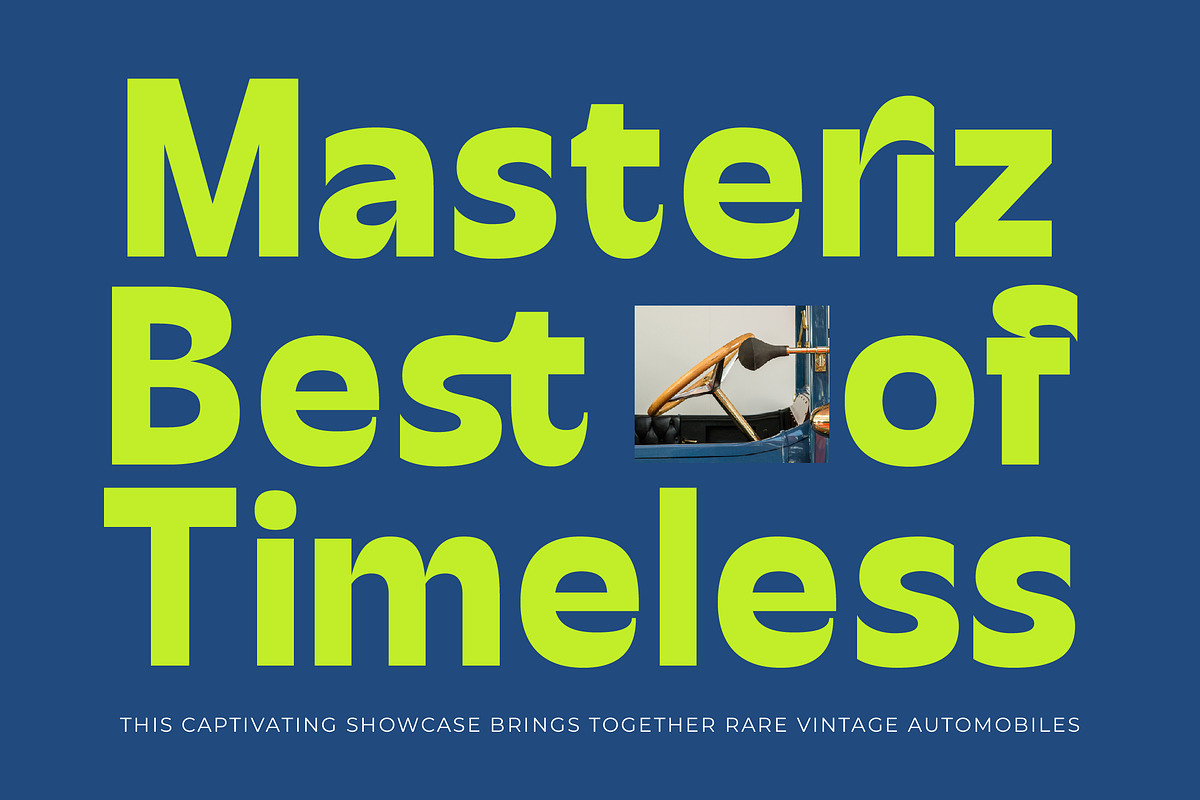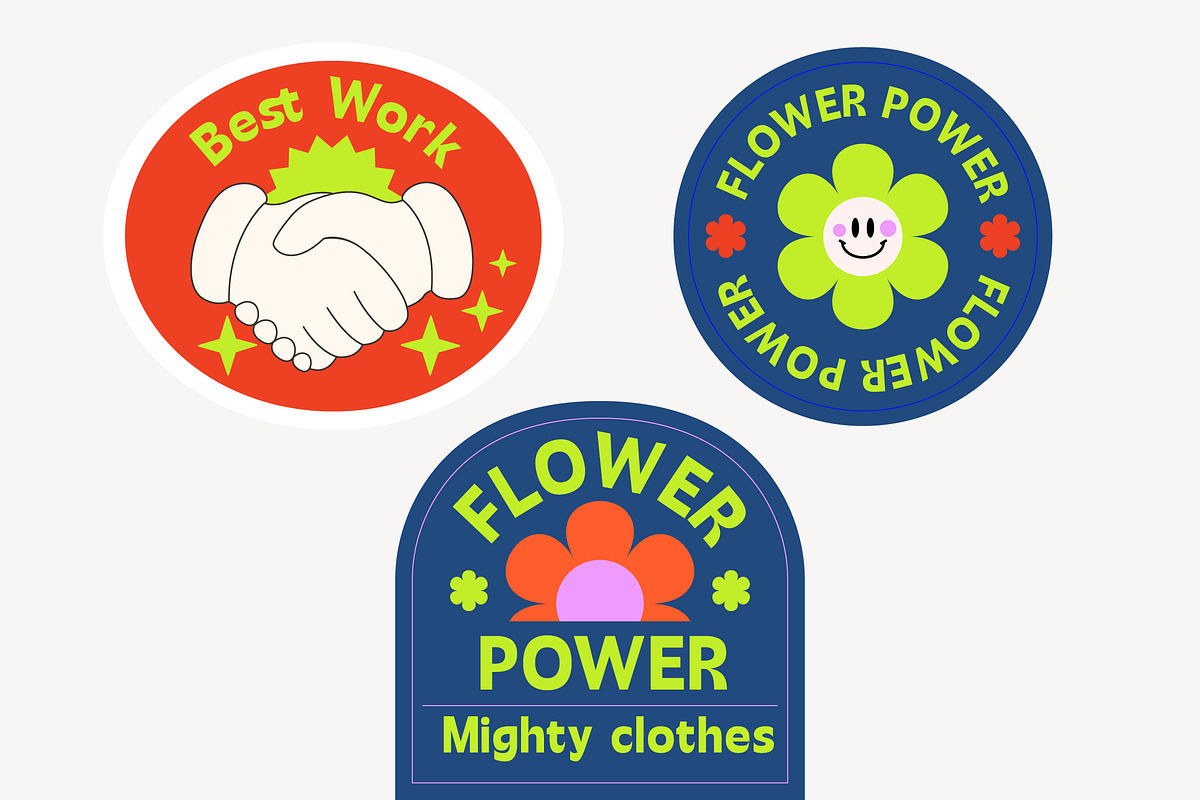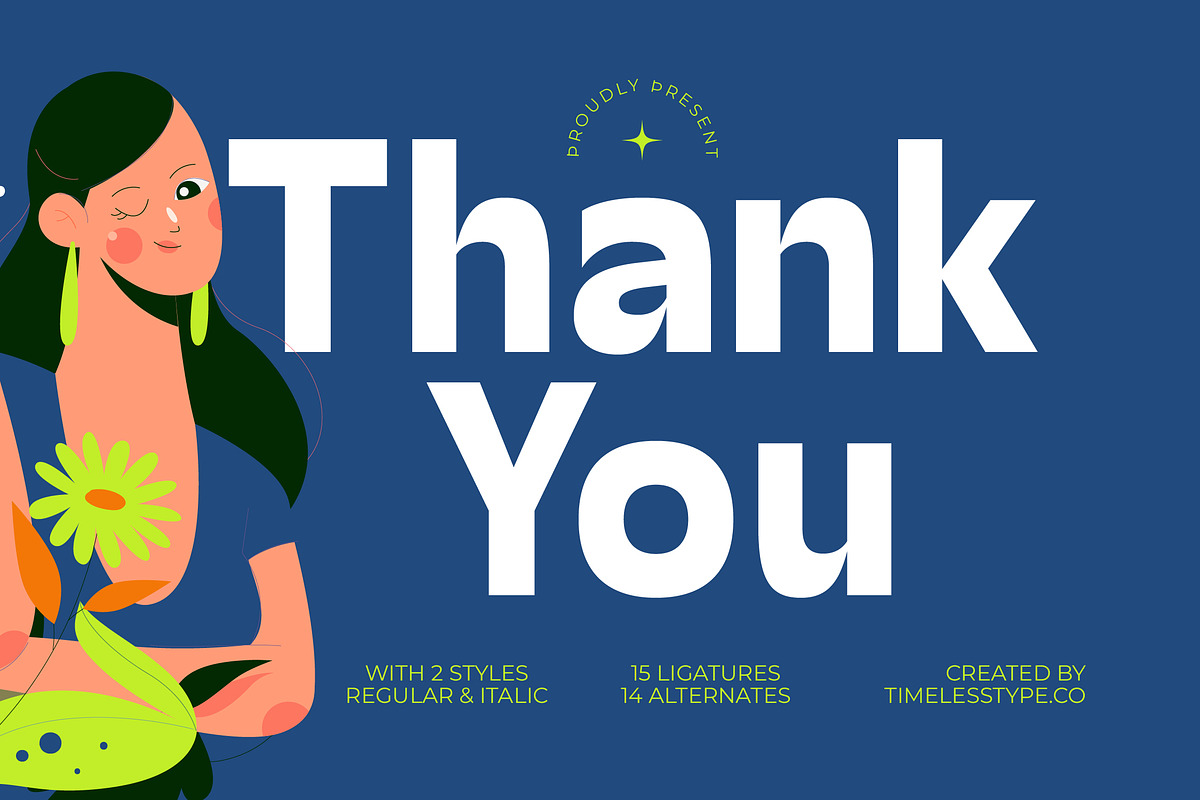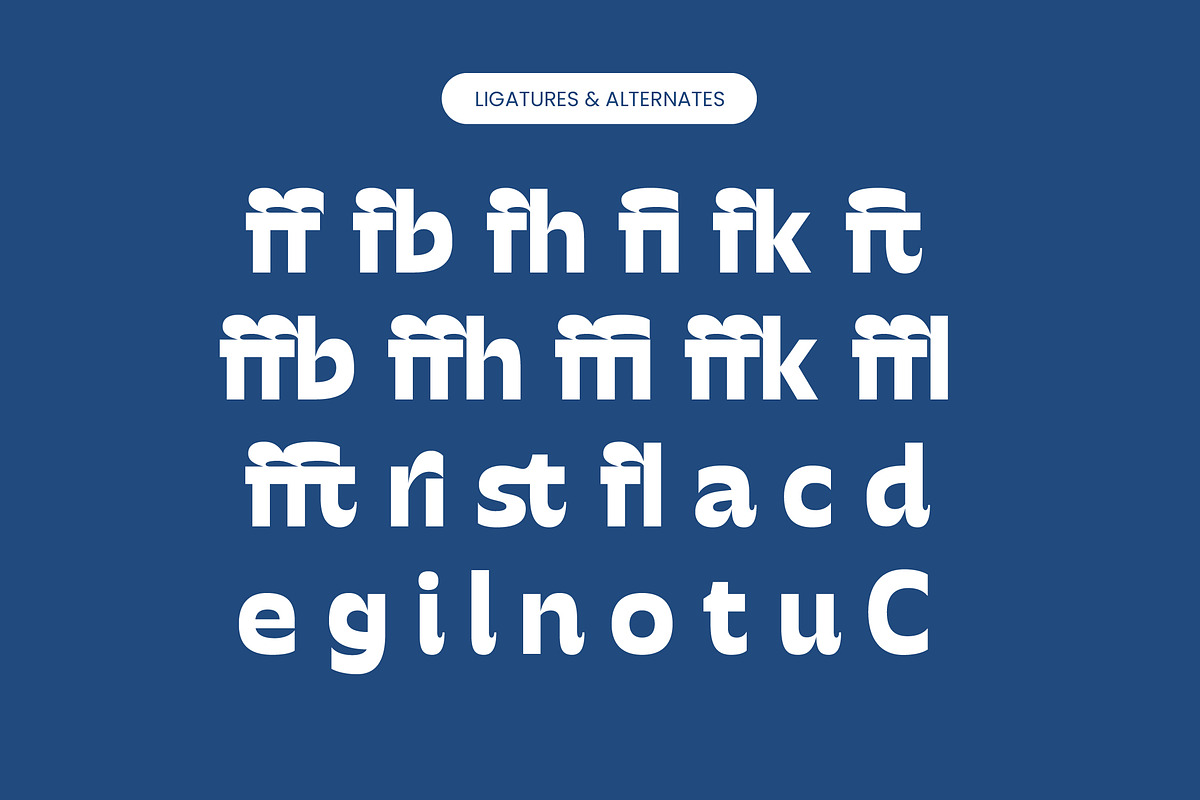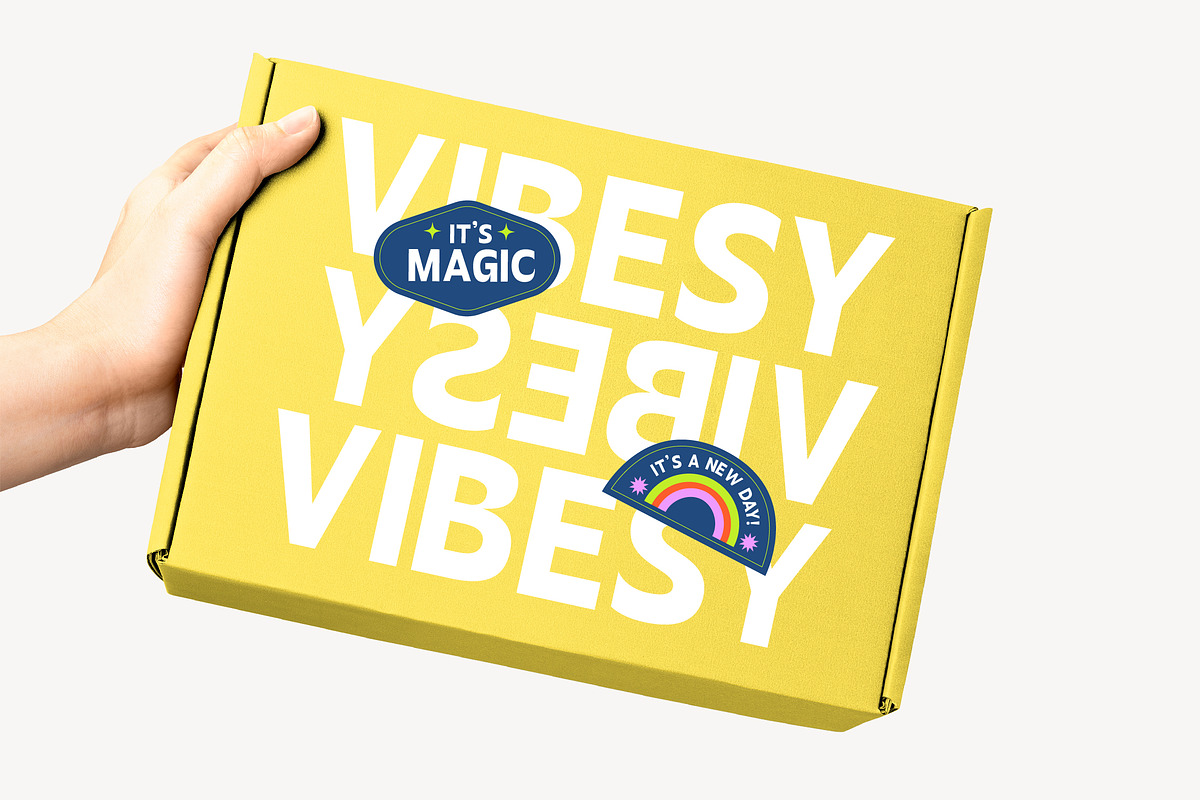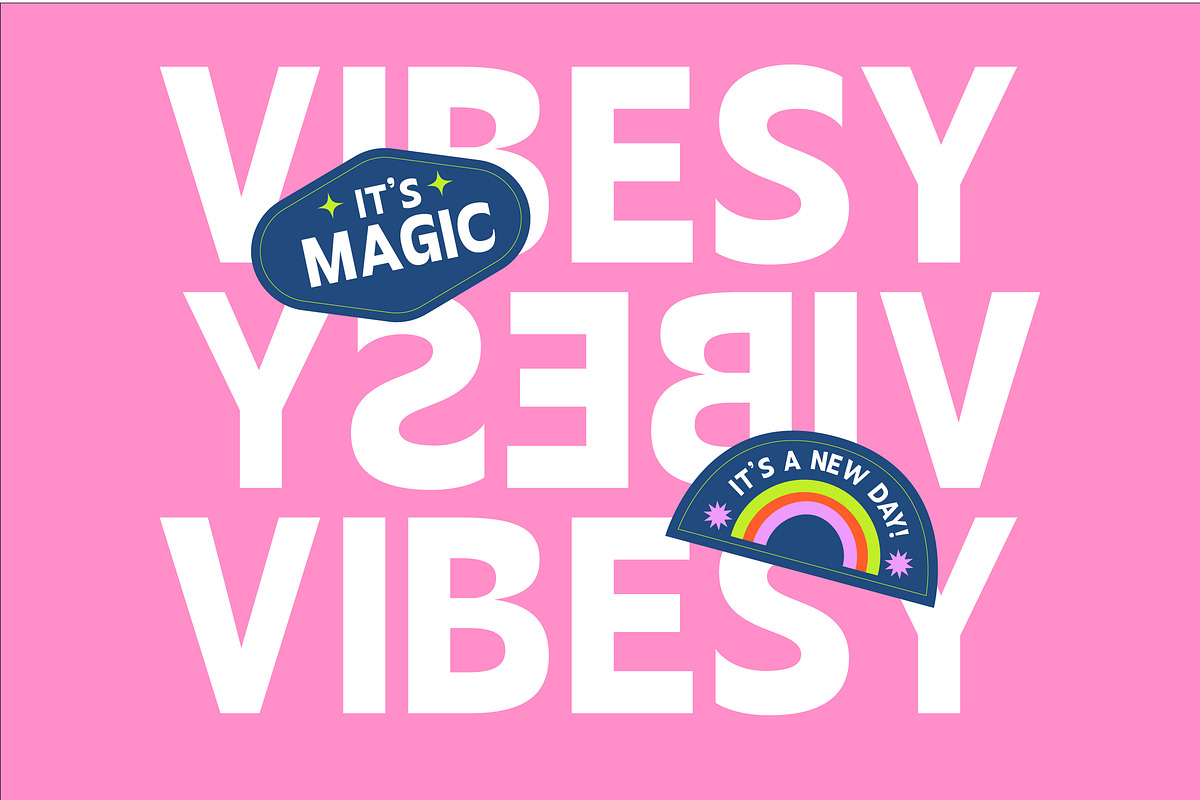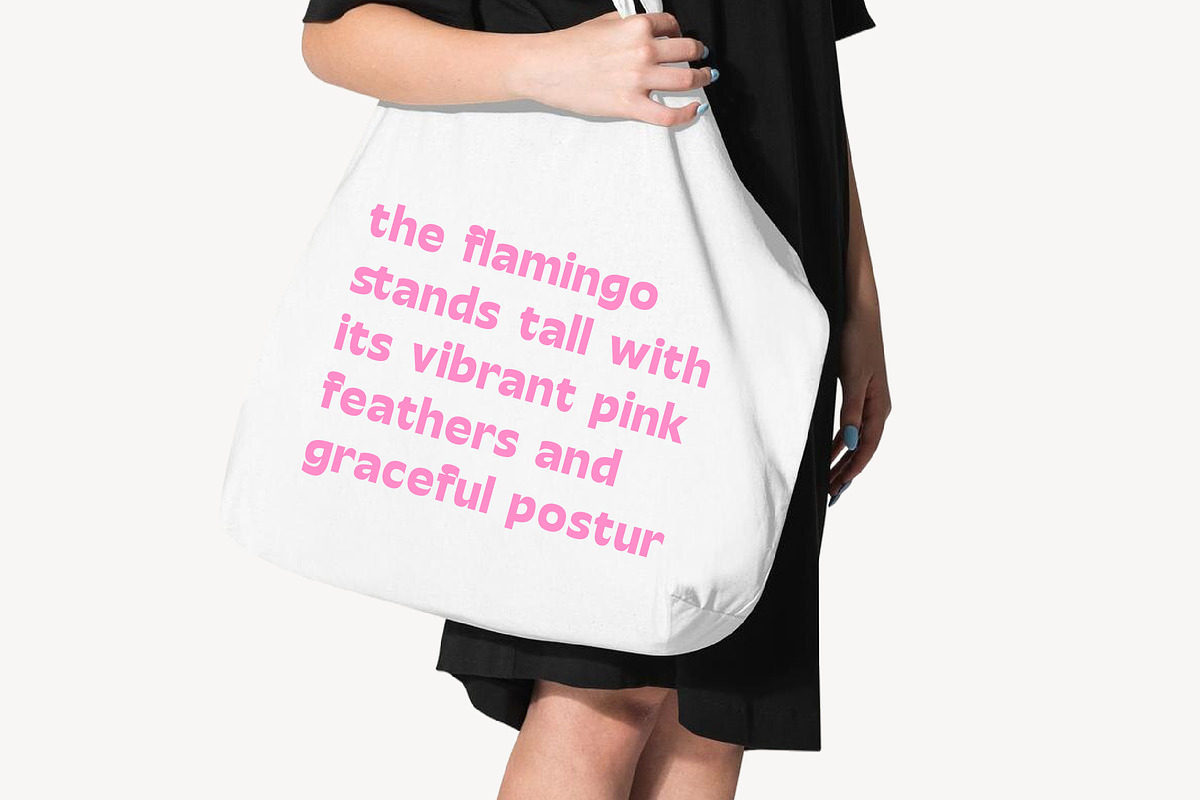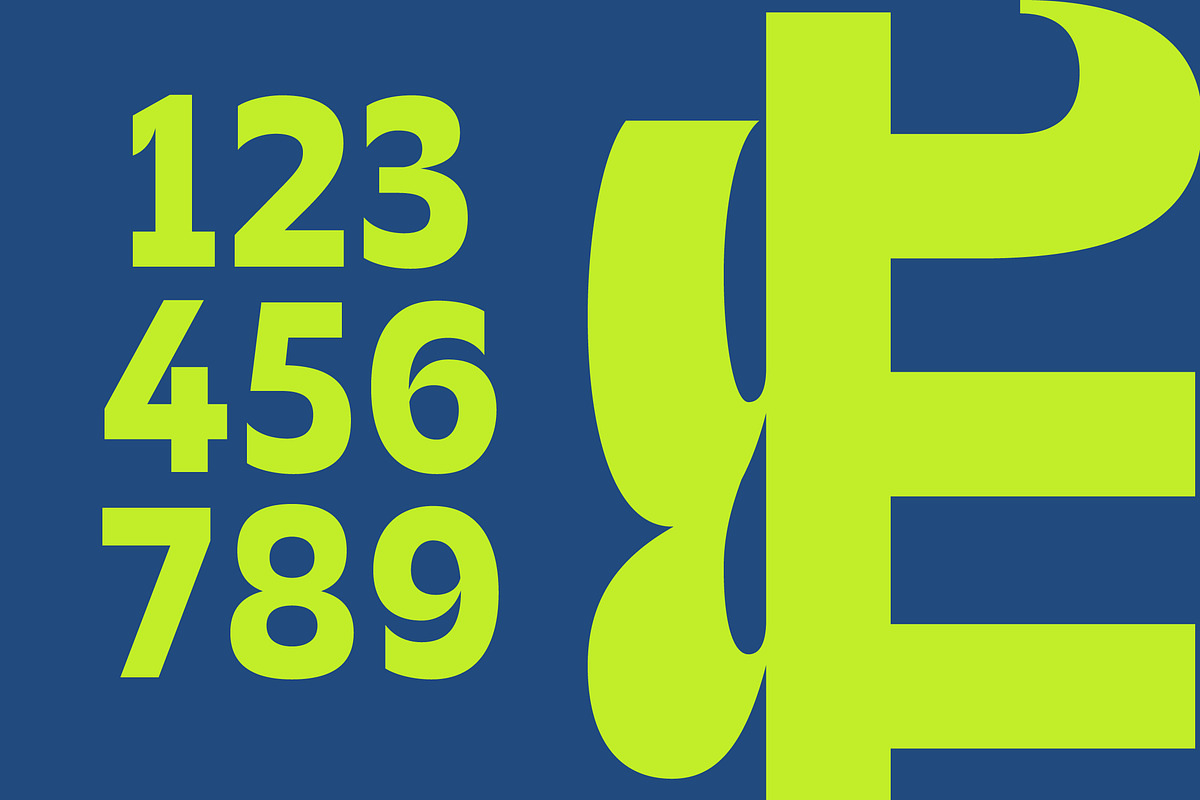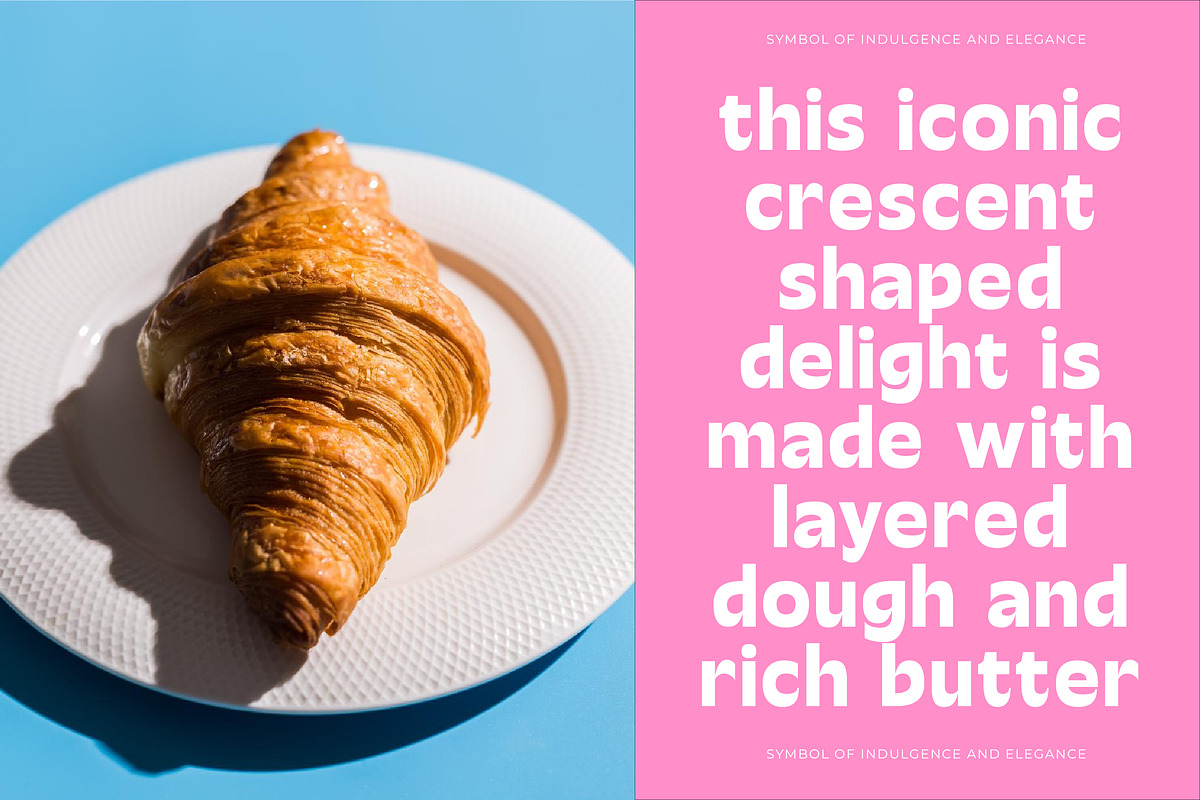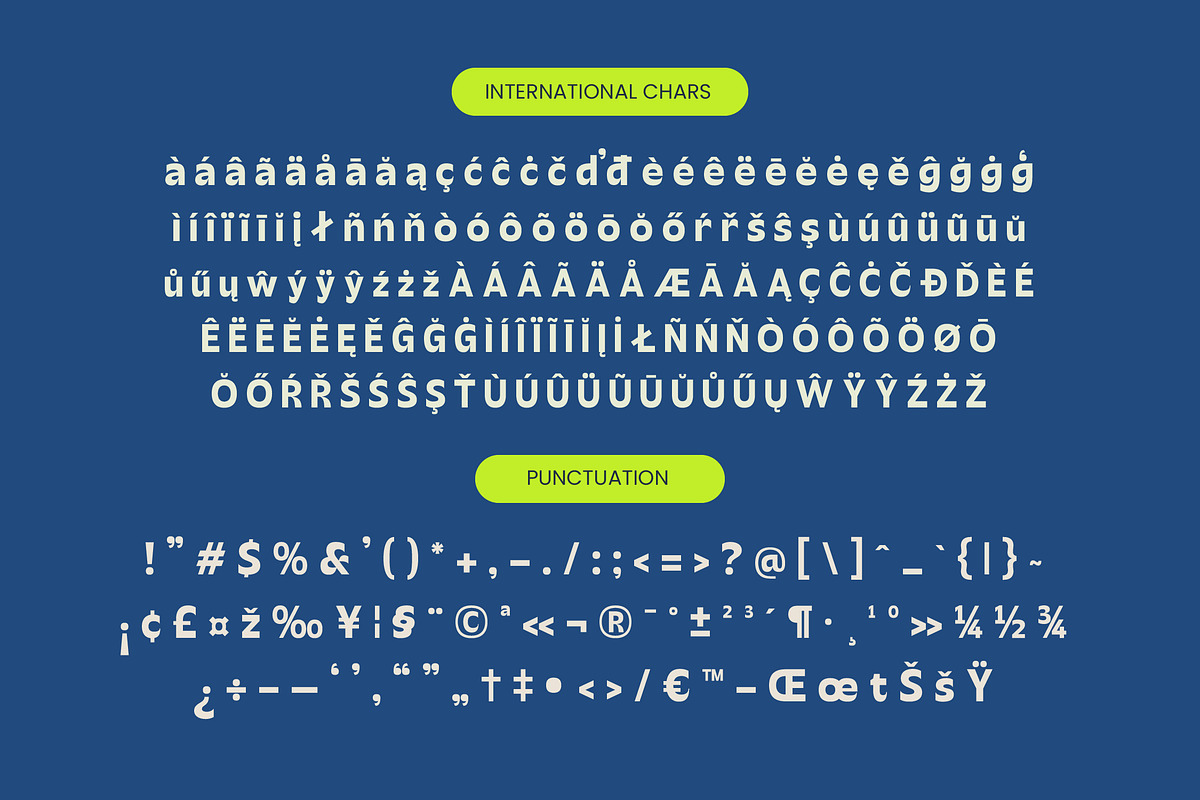
Mighty Swifta Display Serif Font
Elevate your creative vision with the striking presence of Mighty Swifta, a typeface designed to command attention and inspire confidence. This font bridges the gap between classic elegance and contemporary playfulness, making every word a work of art through its unique proportions.
Inspired by the vibrant energy of mid-century display posters and the refined precision of modern editorial layouts, this typeface carries a rhythmic soul. It captures the essence of a sophisticated lifestyle while maintaining an approachable, character-rich aesthetic that feels both timeless and fresh in any setting.
As a premier modern serif display, this typeface offers a masterclass in luxury typography and high-contrast serif design. It is the ultimate editorial font for those seeking a massive branding impact, providing a unique visual voice that stands out in a crowded digital landscape through its distinctive personality.
Perfectly aligned with the current modern serif trend, this typeface is a must-have for designers focusing on editorial display fonts and character-driven typography. It responds to the growing demand for expressive letterforms that break away from traditional structures without sacrificing legibility or professional prestige.
Whether you are working on a high-end logo design or a comprehensive branding project, this font excels in editorial layouts and luxury packaging. Its versatile nature makes it equally suitable for sophisticated wedding invitations or cutting-edge fashion lookbooks and social media graphics.
Take full advantage of the creative possibilities with custom-crafted ligatures and unique alternates that allow for tailored headlines. The package also includes comprehensive multilingual support and a wide range of international characters, ensuring your message resonates globally across all platforms.
- Ligature 15 Alternate 14